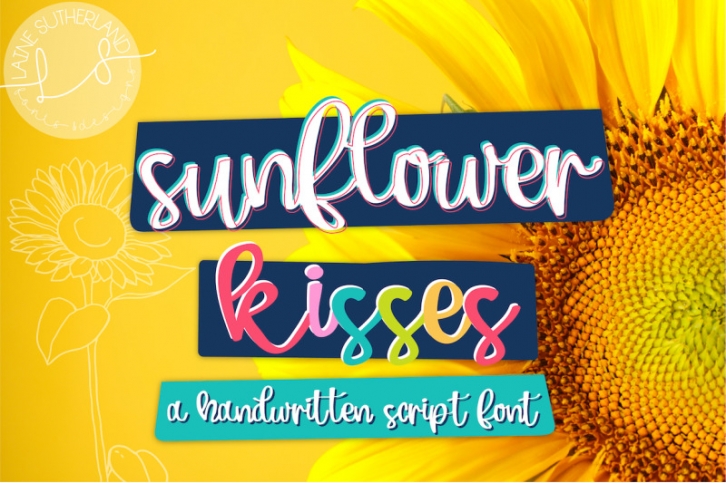
Sunflower Kisses is a beautiful handwritten font.
This font is great for branding, logos, posters, invitations and more.
Some accent characters are included – be sure to check out the preview to see which characters are included in this set.